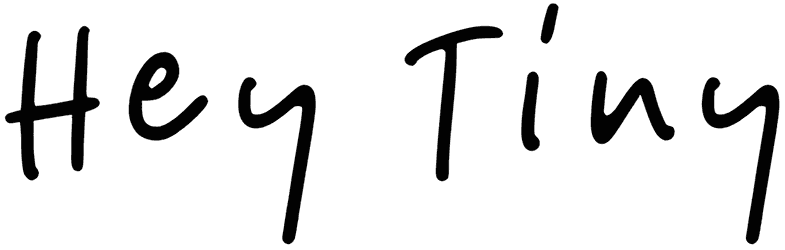
Hey Tiny Font
Just download Hey Tiny and combine its three exciting weights to bring personal space to your digital world. This handwritten font has a careless and childish look that gives an elegant look to your designs and can convey all the meanings of simplicity.